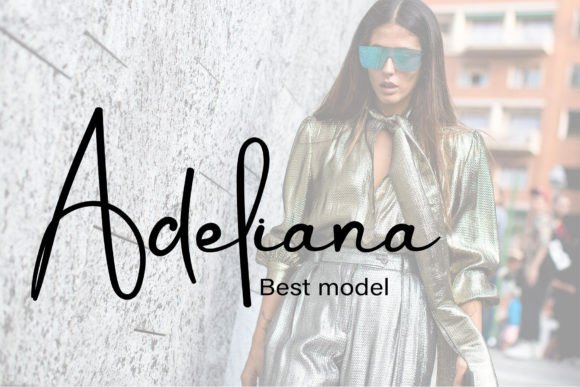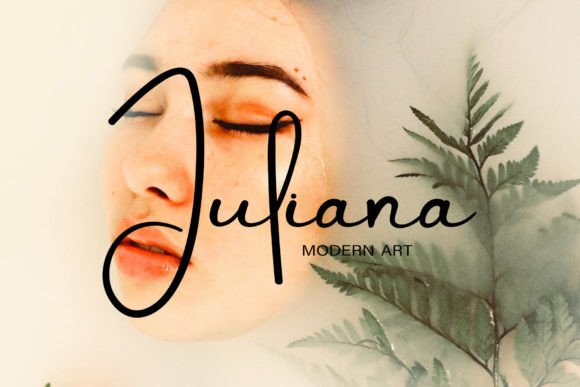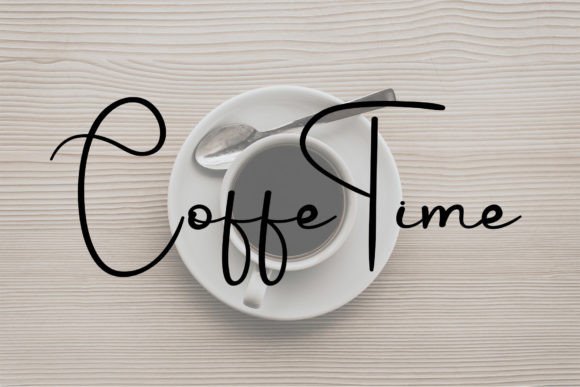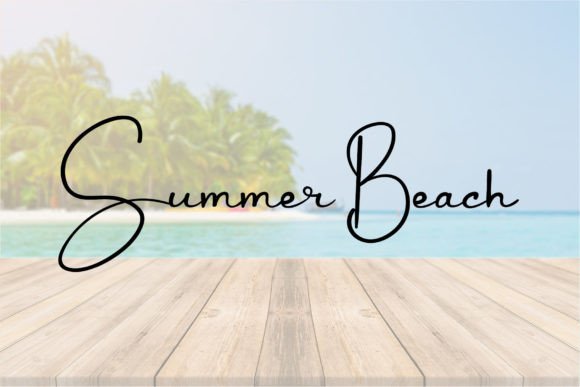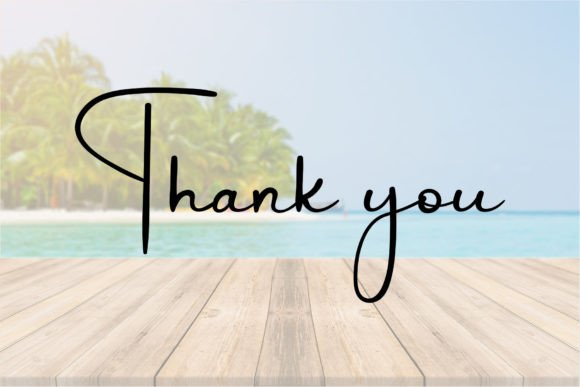
Unlocking Creativity with Creative Signature Font
In the world of design, a signature font can make all the difference in setting the tone and personality of your creative projects. If you’re on the hunt for a unique and casual-looking display font that can elevate your designs, look no further than Creative Signature Font. Crafted with great care to produce the expected results, this font is perfect for writing titles, invitations, letters, and various other types of informal products.
The Features of Creative Signature Font
So, what makes Creative Signature Font stand out from the rest? Here are some of its key features:
- Unique and Casual-Looking Design: Creative Signature Font boasts a distinctive and laid-back design that’s perfect for creating eye-catching titles, headings, and invitations.
- PUA Encoded: This font is PUA (Private Use Area) encoded, which means you can access all of the amazing glyphs and ligatures with ease. This feature allows you to unlock the full creative potential of the font.
- Versatile Uses: Whether you’re working on a DIY craft project, designing an invitation, or creating a title for a blog post, Creative Signature Font is the perfect choice.
Why Designers and Crafters Love Creative Signature Font
Designers and crafters alike can appreciate the value of a high-quality signature font like Creative Signature. Here are some reasons why:
- Ease of Use: With its PUA encoding, you can easily access all the glyphs and ligatures you need to create stunning designs.
- Customization Options: The font’s unique design and range of glyphs allow for endless customization options, ensuring your designs stand out from the crowd.
- Time-Saving: With Creative Signature Font, you can quickly and easily create professional-looking designs without spending hours searching for the perfect font or tweaking the settings.
Tips for Using Creative Signature Font
To get the most out of Creative Signature Font, here are some tips to keep in mind:
- Experiment with Different Sizes and Colors: Don’t be afraid to try out different sizes and colors to see what works best for your design.
- Pair it with Other Fonts: Creative Signature Font pairs well with a range of other fonts, so feel free to get creative and experiment with different combinations.
- Use it for Headings and Titles: The font’s unique design makes it perfect for headings and titles, but don’t be afraid to use it for body text too.
In conclusion, Creative Signature Font is a versatile and unique display font that’s perfect for designers and crafters looking to add a personal touch to their projects. With its PUA encoding, range of glyphs, and casual-looking design, this font is sure to become a go-to in your design arsenal. So why wait? Unlock your creativity with Creative Signature Font today and take your designs to the next level!
- Is Creative Signature Font suitable for body text?: While Creative Signature Font is designed primarily for headings and titles, it can be used for body text too. However, keep in mind that it may not be as readable as other fonts designed specifically for body text.